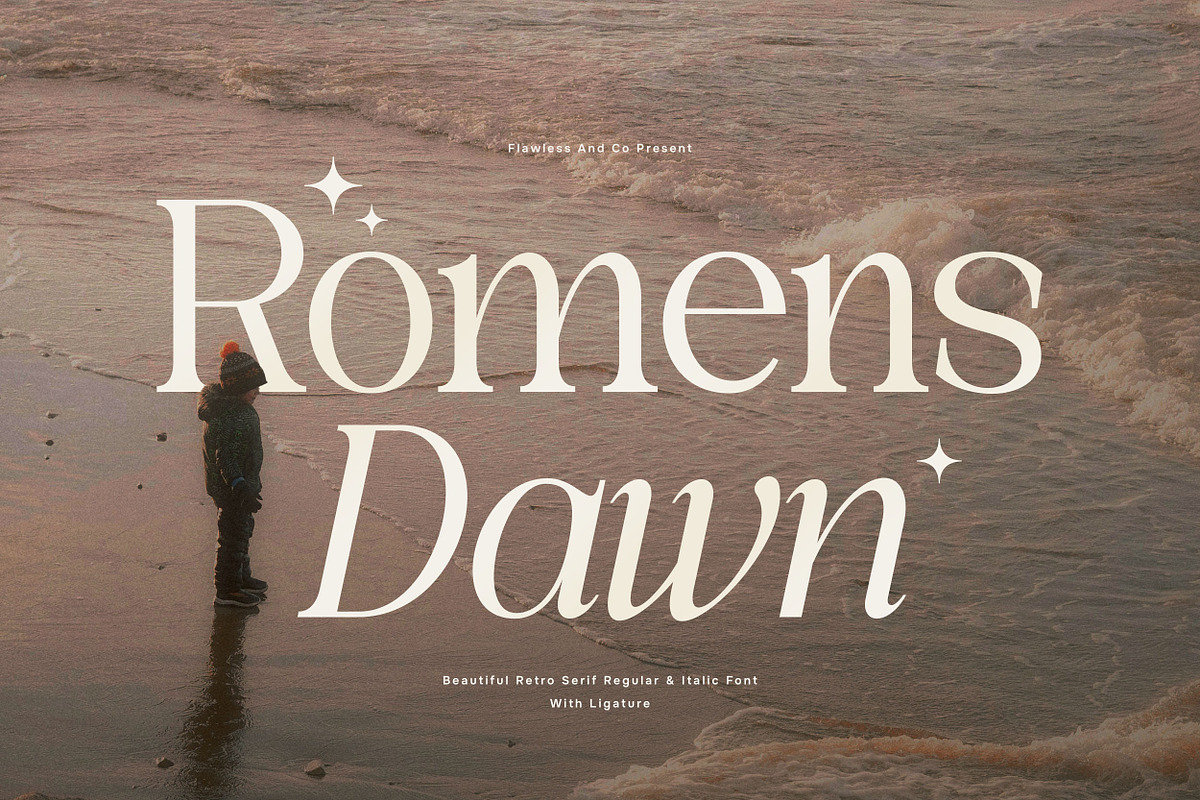
Romens Dawn – Retro Serif Font
Romens Dawn – Retro Serif Font is a professionally designed typeface that delivers clarity, structure, and consistent performance across various design applications. Romens Dawn is a retro serif duo font crafted to deliver a timeless and beautiful appealing typographic style. Combining regular and italic versions, this font offers a versatile design solution for creating elegant and expressive layouts. Inspired by vintage typography, Romens Dawn features refined serif shapes, smooth curves, and balanced proportions that create a warm and classic atmosphere. The regular style provides structure and readability, while the italic style introduces a soft, flowing character that adds movement and emphasis to your text.